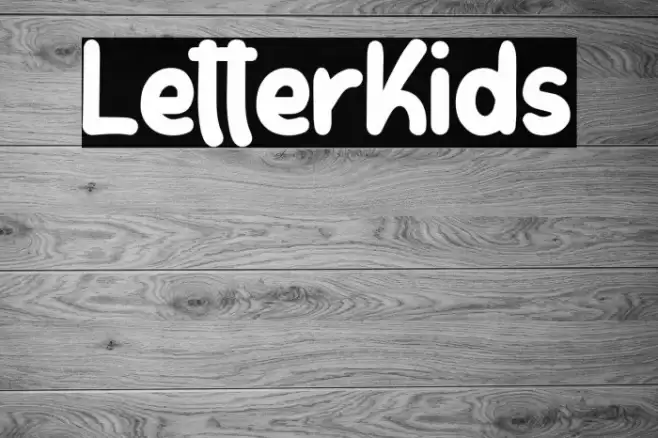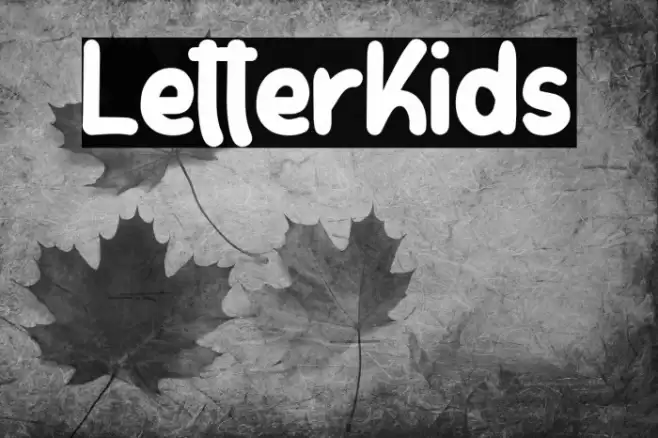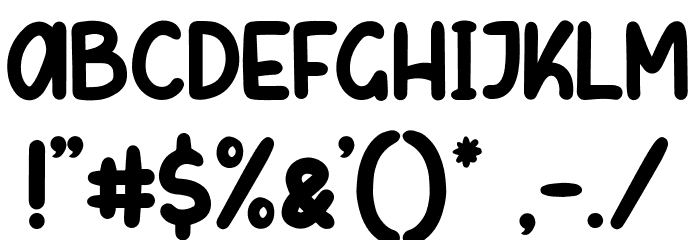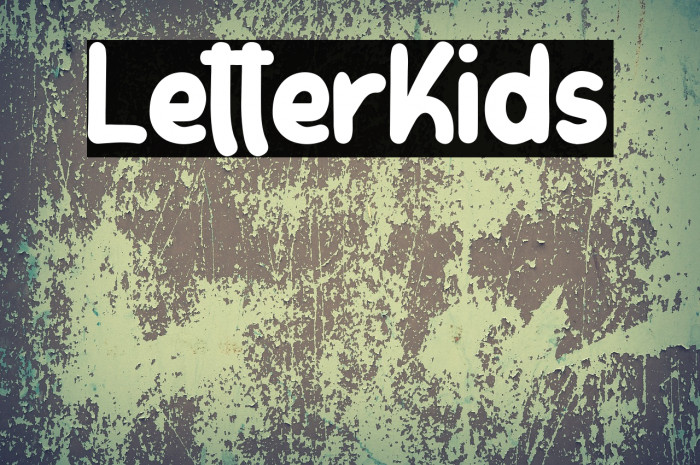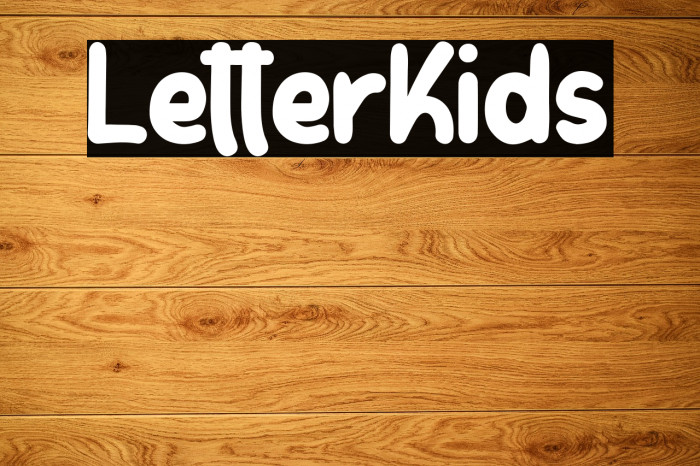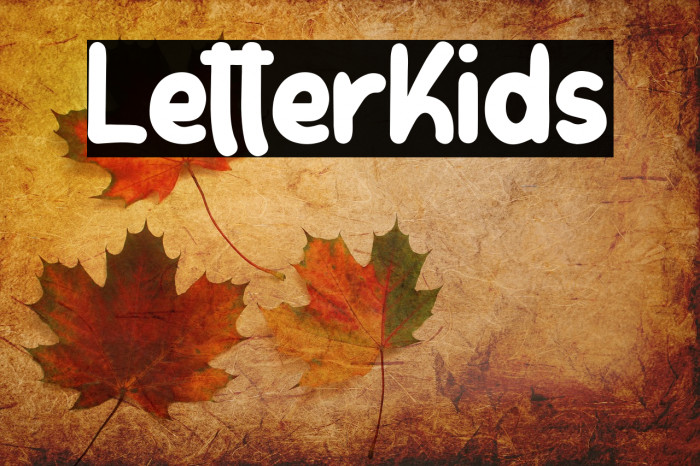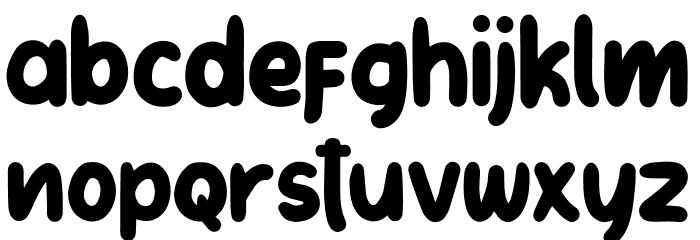
LetterKids Font
LetterKids Description
This playful and bold font features rounded edges and a bubbly appearance, making it ideal for children's content and educational materials. The characters are evenly spaced, with a consistent stroke width that gives it a friendly and approachable look. The uppercase and lowercase letters maintain a uniform style, enhancing readability. The font includes a full set of numerals and a variety of special characters, ensuring versatility for different design needs. Its whimsical nature makes it perfect for capturing attention and conveying a sense of fun and creativity.
A playful, bold font with rounded edges, ideal for children's content from Cartoon fonts.
- Proposed Projects: Children's books, educational materials, toy packaging, playful branding.
- Overall Style: Playful
- Use Case: Headlines, Logos, Children's content